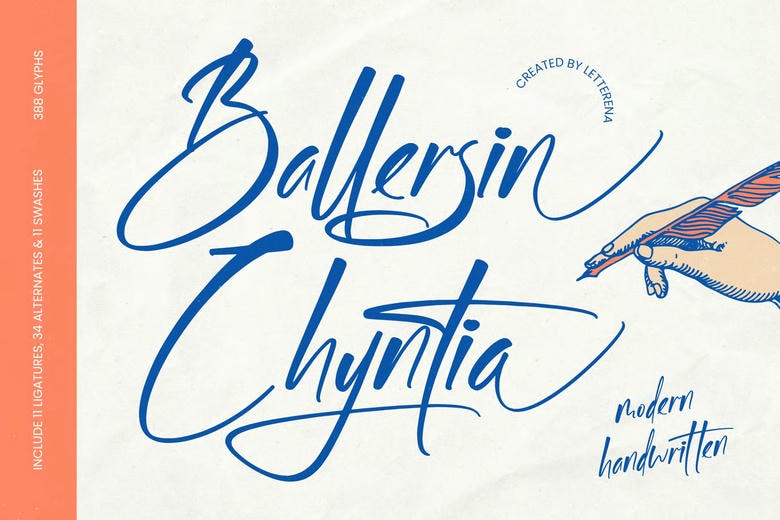
Ballersin Chyntia Font
Ballersin Chyntia – Modern Handwritten is a script font that brings elegance and artistry to your work. It blends a modern look with classic charm, so your projects feel handcrafted and high-quality.
Ballersin Chyntia – Modern Handwritten gives you creative flexibility with more than 388 glyphs, including special ligatures, alternates, and swashes. These features let you design custom typography that stands out.
Ballersin Chyntia Handwritten Font